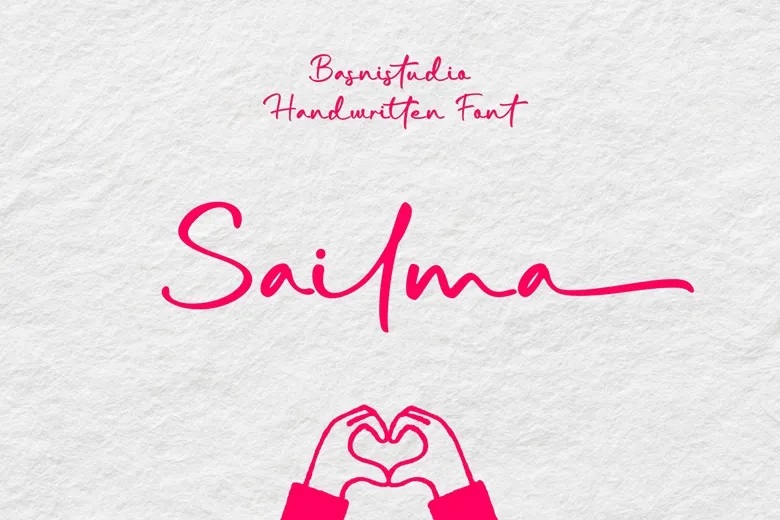
Sailma Font
Sailma is a handwritten typeface with light, flowing strokes and an upright style. Sailma works well for organic cosmetic labels, wedding stationery, jewelry packaging, gift tags, and friendly social media quotes.
Sailma Handwritten Script Font